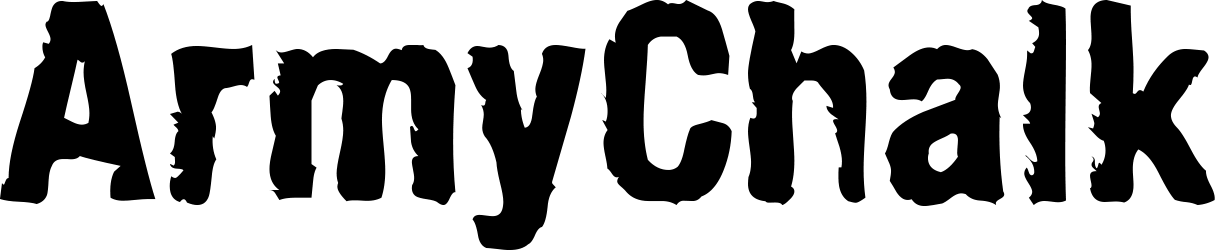
ArmyChalk Font
ArmyChalk is a fantastic-looking chalk font that you can use for many different purposes. Its retro and bold look makes it a good choice for card designs, flyers, apparel designs, logos, and brands for chalk companies.
It comes with all the characters and it contains both the lowercase and uppercase of the alphabet.